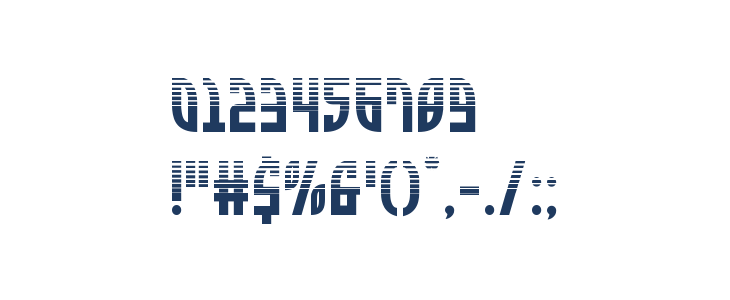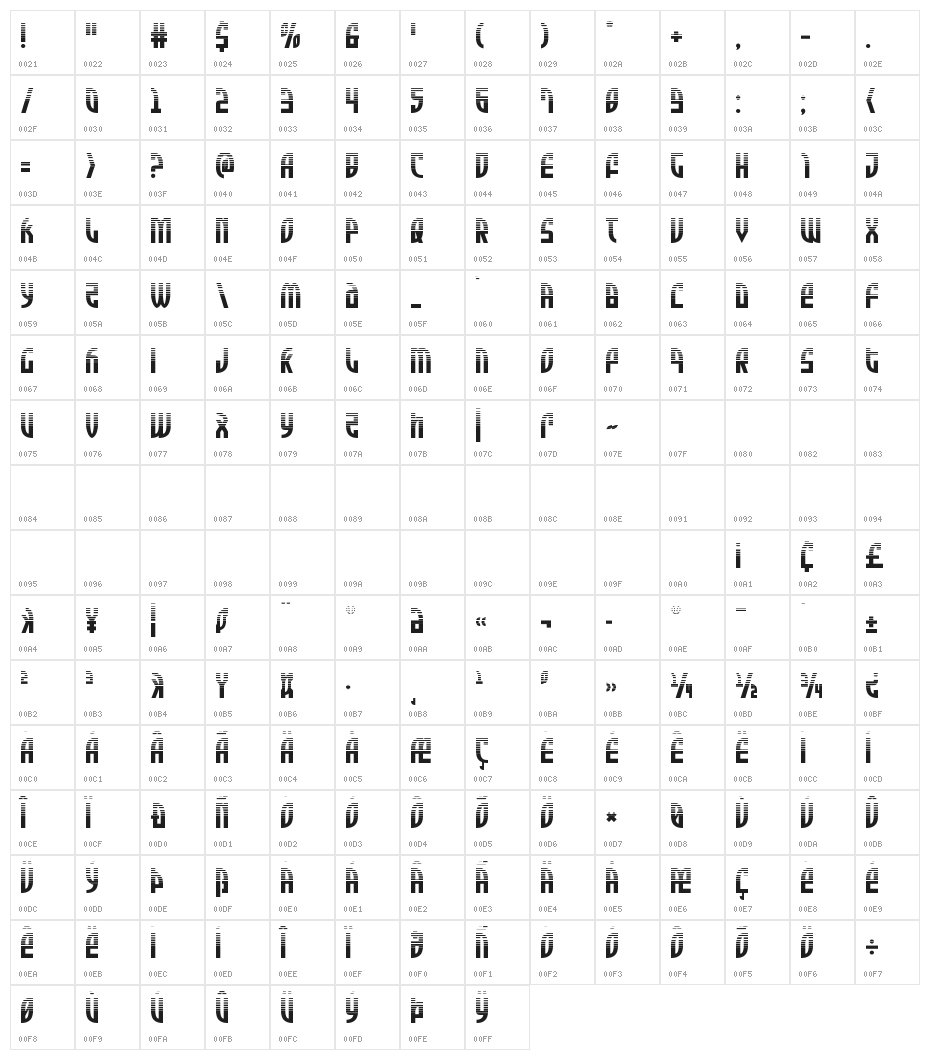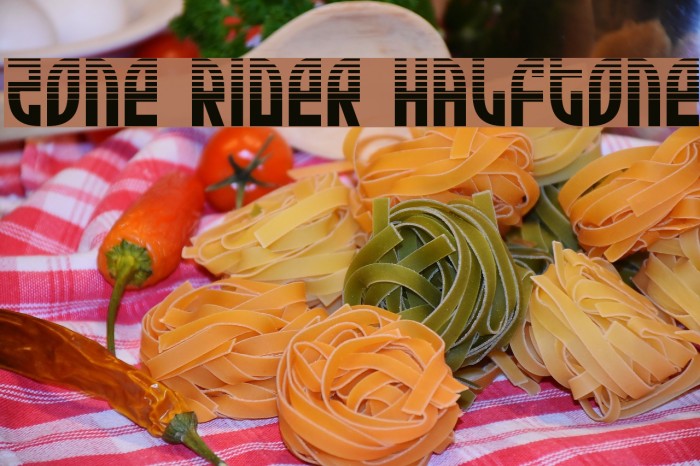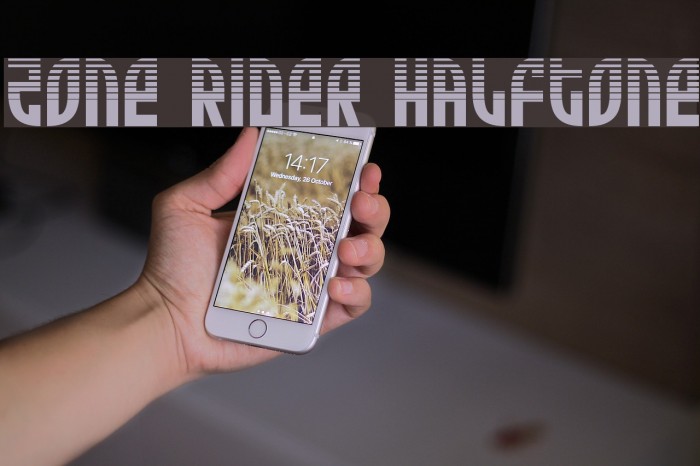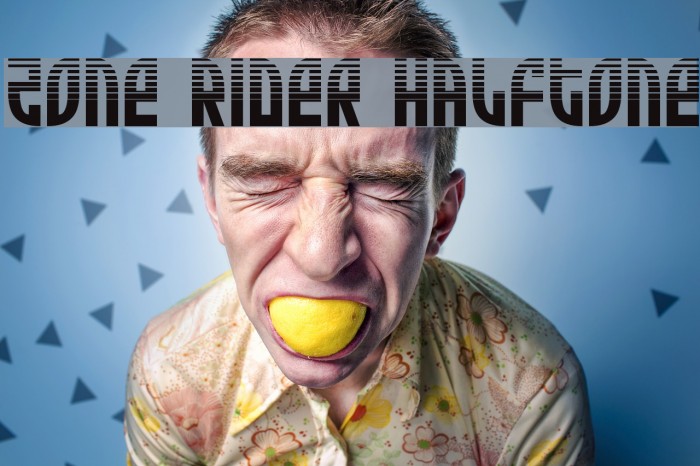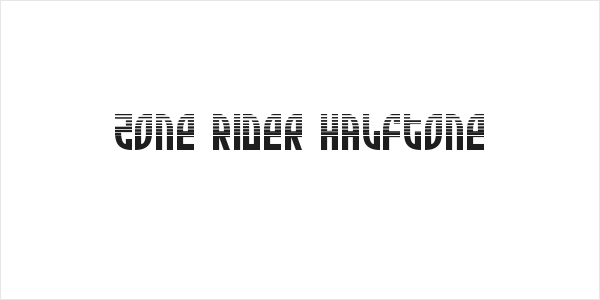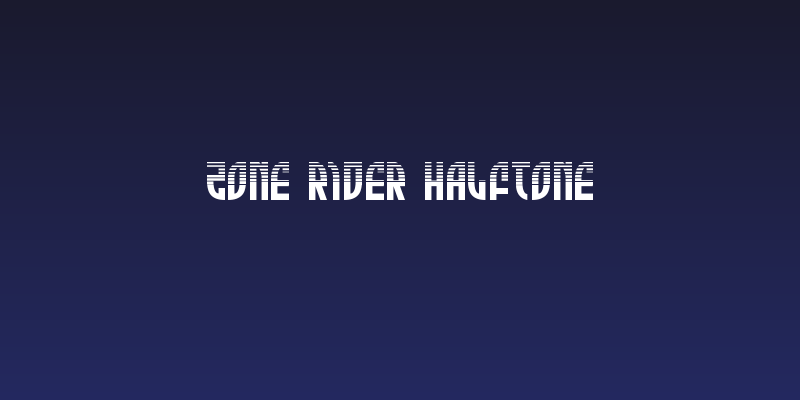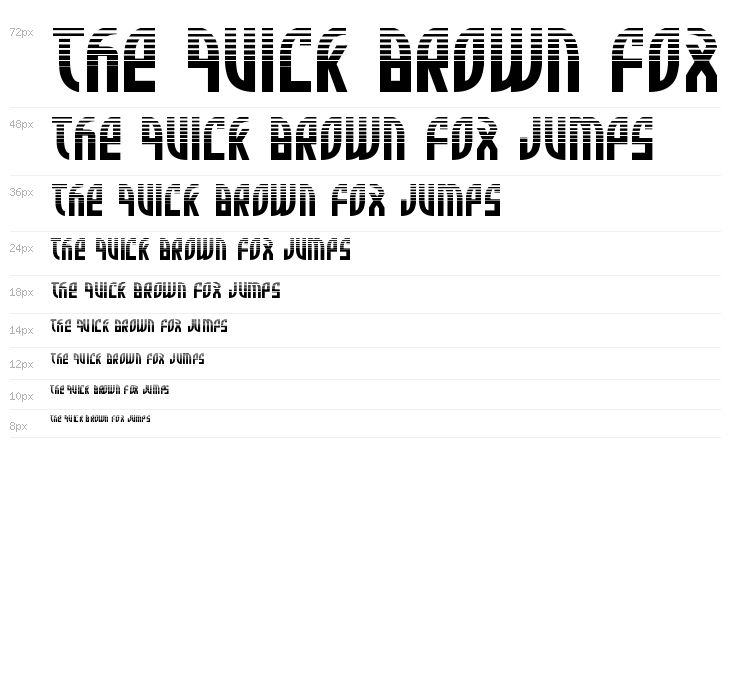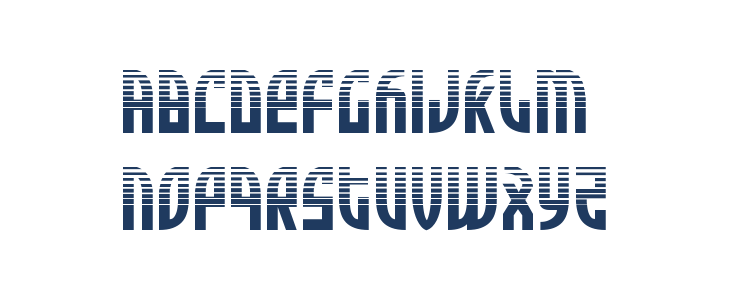
Zone Rider Halftone Font
Zone Rider Halftone Description
This font features a bold and striking design with a halftone effect that gives it a unique, futuristic appearance. The characters are constructed with horizontal lines that create a sense of movement and depth. The uppercase and lowercase letters maintain a consistent style, with sharp angles and clean edges. The numbers and special characters are equally bold, making them stand out. This font is ideal for projects that require a modern and edgy look, such as tech-related designs or contemporary branding. Its distinctive style ensures it captures attention while remaining legible.
| Proposed Projects | Ideal for tech branding, futuristic posters, and modern digital artwork. |